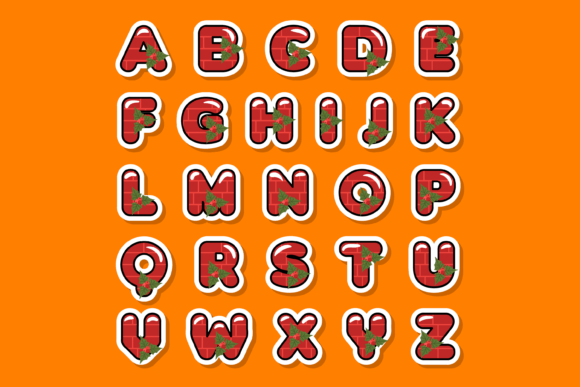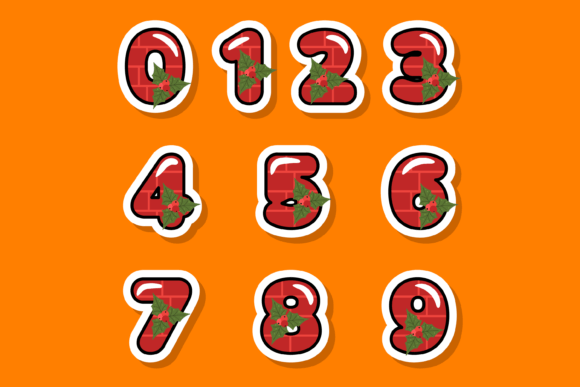
Introducing Chimney Font: The Ultimate Christmas Color Font
Are you looking for a font that adds a touch of festive magic to your designs? Look no further than Chimney Font, an incredibly cool color font specially designed for Christmas. This stunning font is perfect for designers, crafters, and DIY enthusiasts who want to create custom designs, crafts, and creations that exude a warm and cozy holiday spirit.
What Makes Chimney Font So Special?
Chimney Font is not your ordinary font. It’s a color font, specifically an Opentype-SVG font, which means it’s capable of displaying a wide range of colors and gradients. This font is designed to bring a pop of color and fun to your designs, making it perfect for Christmas-themed projects, holiday cards, decorations, and more.
With Chimney Font, the design possibilities are endless. Here are just a few ideas to get you started:
- Create custom holiday cards, invitations, and gift tags that stand out from the crowd.
- Add a personal touch to your DIY crafts, such as ornaments, decorations, and signs.
- Design stunning Christmas-themed social media graphics, blog posts, and website headers.
- Make your holiday party invitations, flyers, and posters shine with this vibrant font.
Tips and Tricks for Using Chimney Font
To get the most out of Chimney Font, here are a few tips and tricks to keep in mind:
- Experiment with different colors and gradients to match your brand or design style.
- Use Chimney Font in combination with other fonts to create a unique and eye-catching design.
- Don’t be afraid to get creative and try out new and innovative design ideas.
Why Choose Chimney Font?
So, why choose Chimney Font for your Christmas designs? Here are just a few reasons:
- It’s a unique and high-quality color font that’s sure to make your designs stand out.
- It’s incredibly versatile and can be used for a wide range of design projects.
- It’s perfect for designers, crafters, and DIY enthusiasts who want to add a touch of festive magic to their creations.